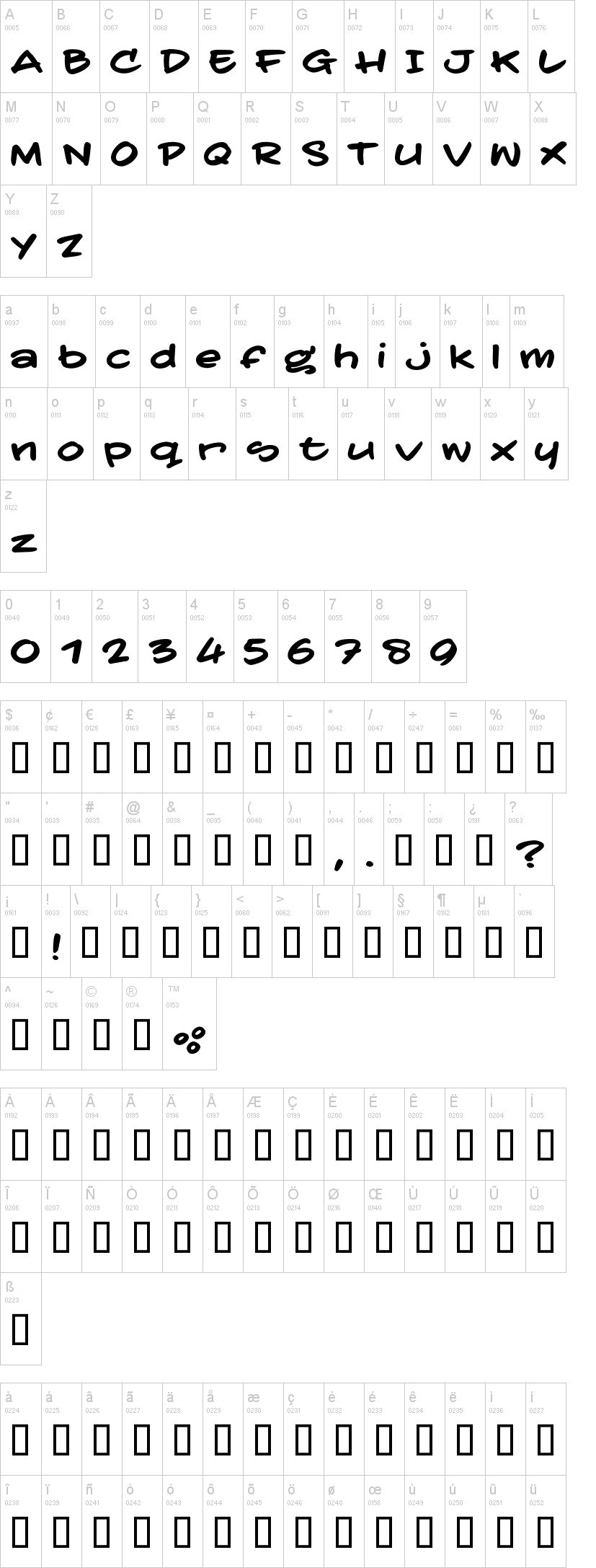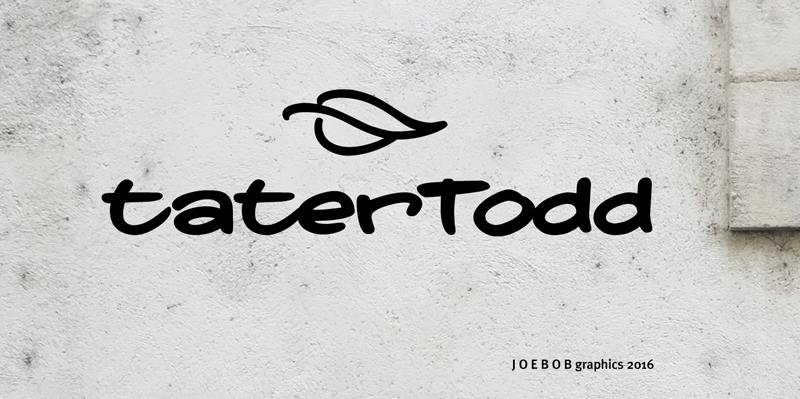
Note of the authorThis is the trial version of taterTodd, a broad felt-tip written brush script with a legible and friendly character. It is very suitable for use on menu's and you should really try using only upper-case in your designs. Full embeddable version available here: https://www.joebobgraphics.com/fonts/tatertodd/